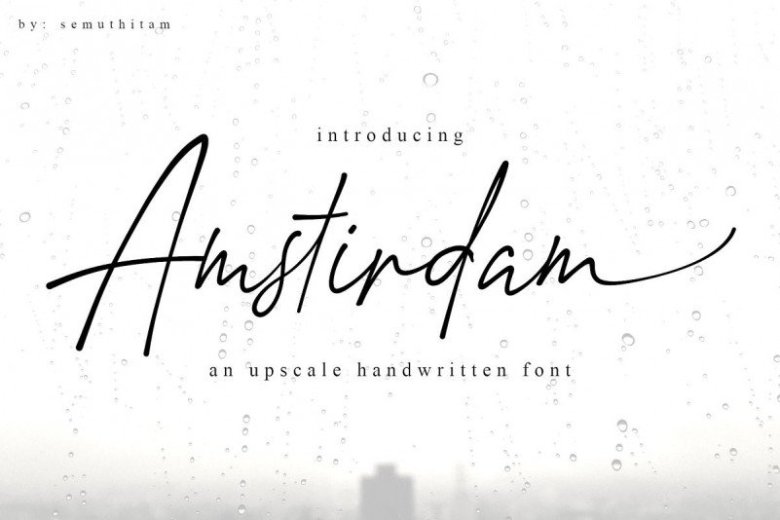
Amstirdam Handwritten Script Font Free
Thank you for looking Amstirdam Font. This is a cute handwritten font! There are a ton of fun ligatures that give this font it’s quirky and authentic look!
It’s an upscale handwritten script font, Very suitable for: branding needs, wedding invitations, business cards, and for other print needs… Amstirdam Handwritten Script Includes full set of elegant uppercase, lowercase letters, numbers, punctuation, multilingual language, and various ligatures. All lowercase have 2 ending variations. And will give you a real handwriting impression.